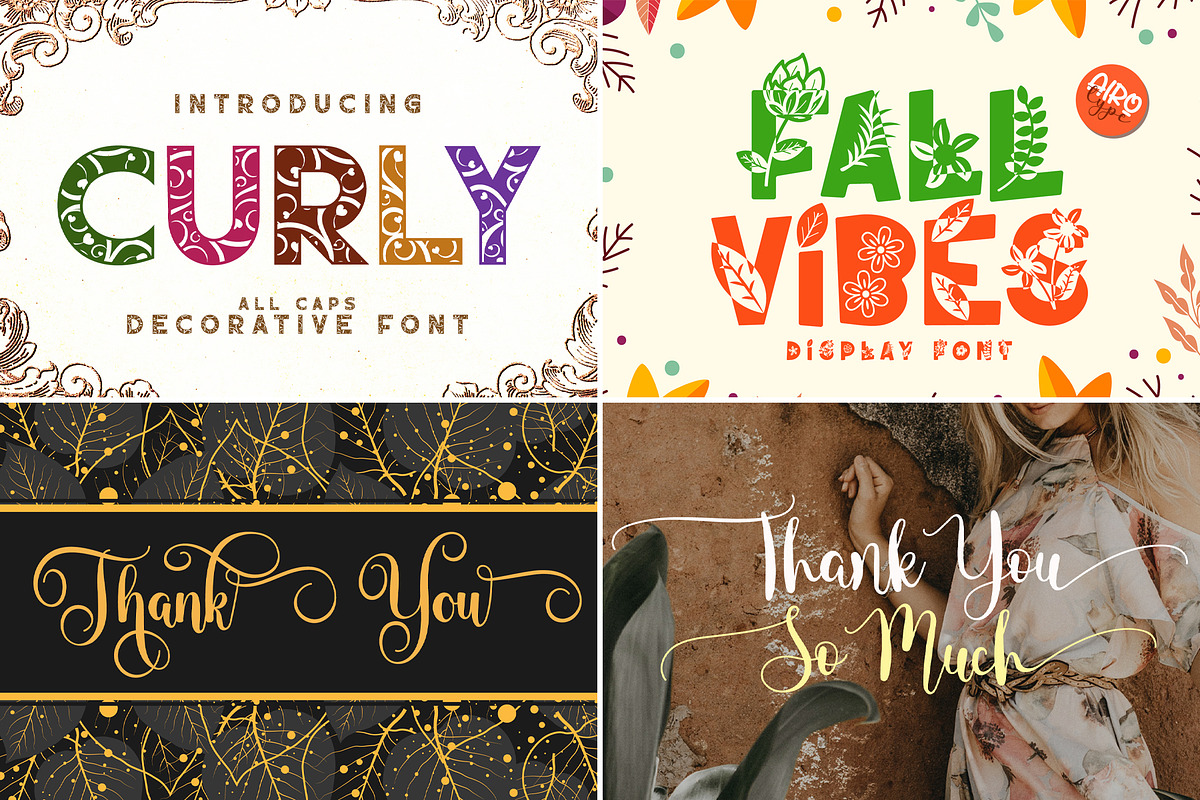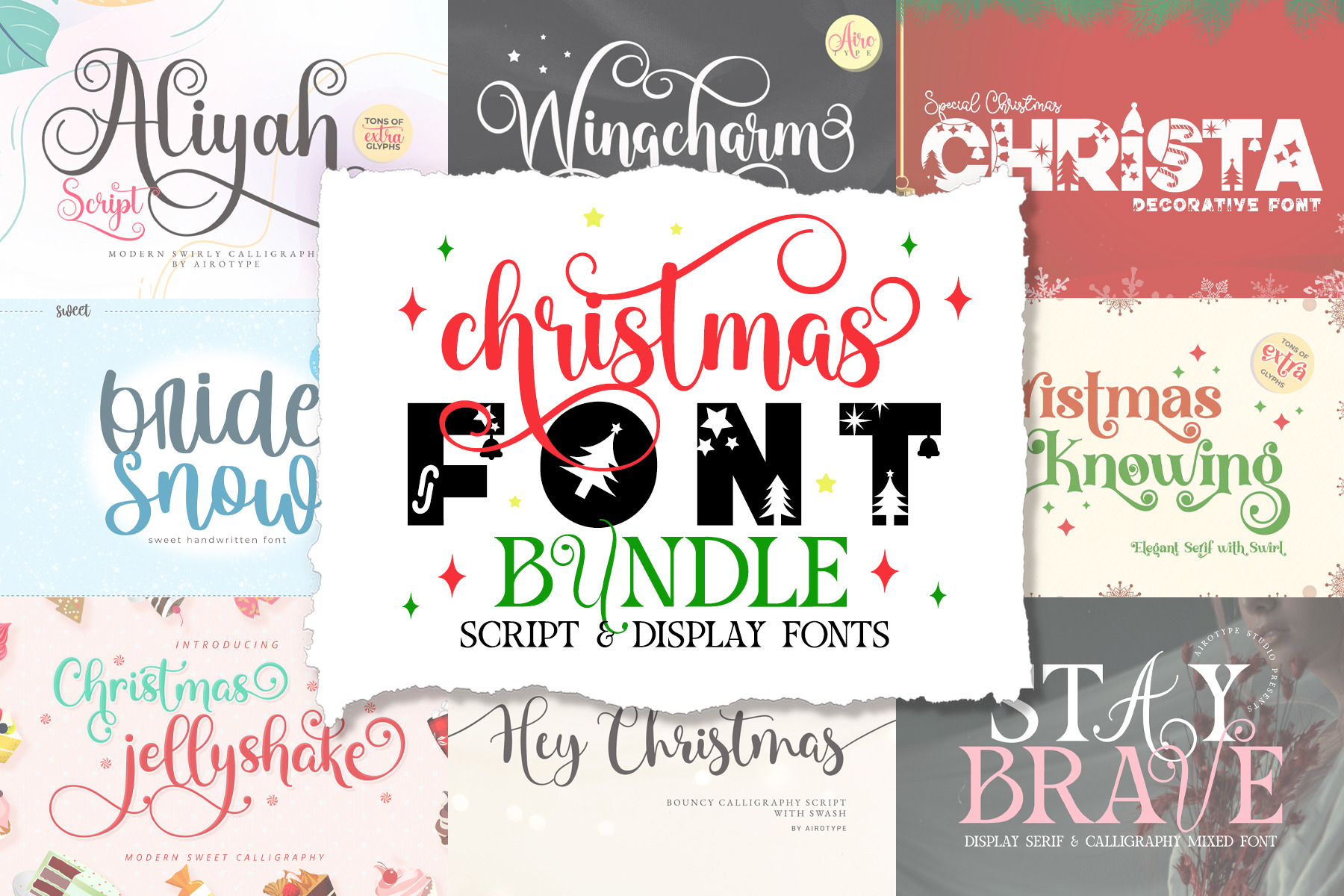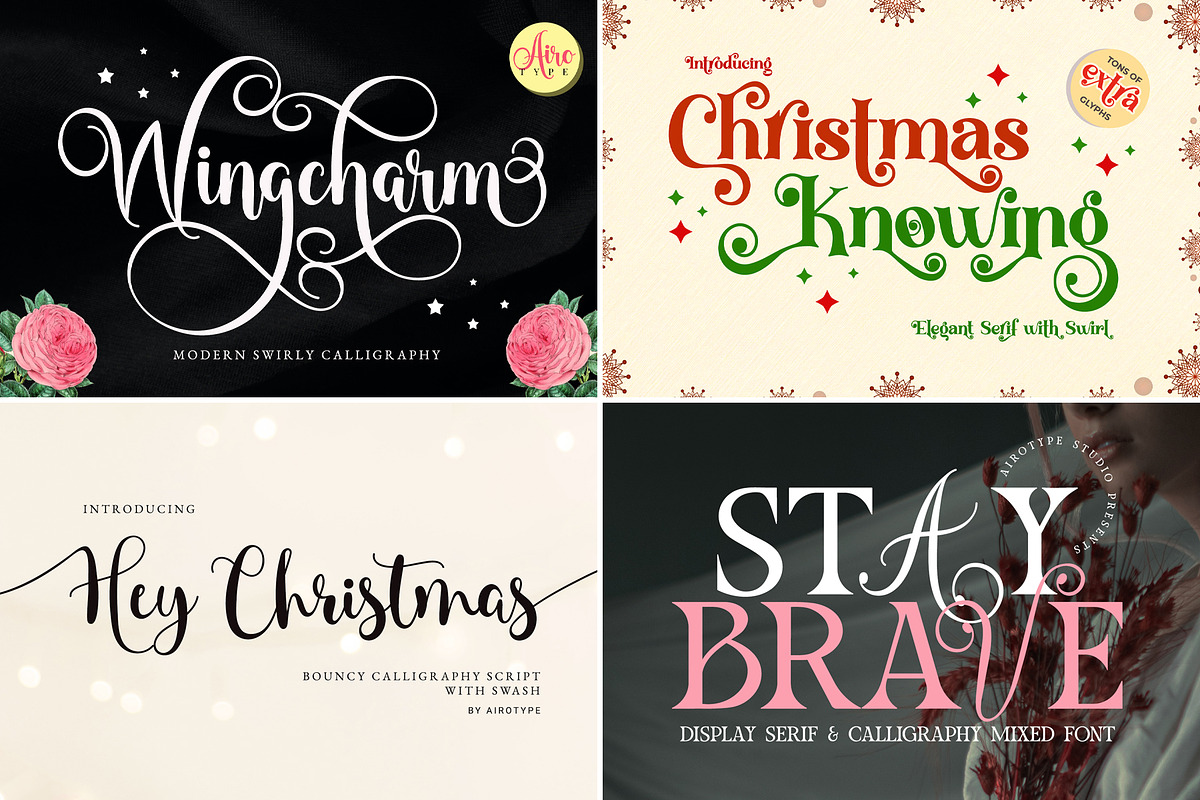
Christmas Font Bundle
Christmas Font Bundle by Airotype is special bundle for Christmas Day. This bundle includes 10 beautiful fonts, from script handwritten font until display font, with its swirl and cursiveness.
Fonts included in this bundle are:
- Curly
- Aliyah Script
- Fall Vibes
- Christmas Knowing
- Christmas Jellyshake
- Christa
- Bride Snow
- Wingcharm
- Hey Christmas
- Stay Brave